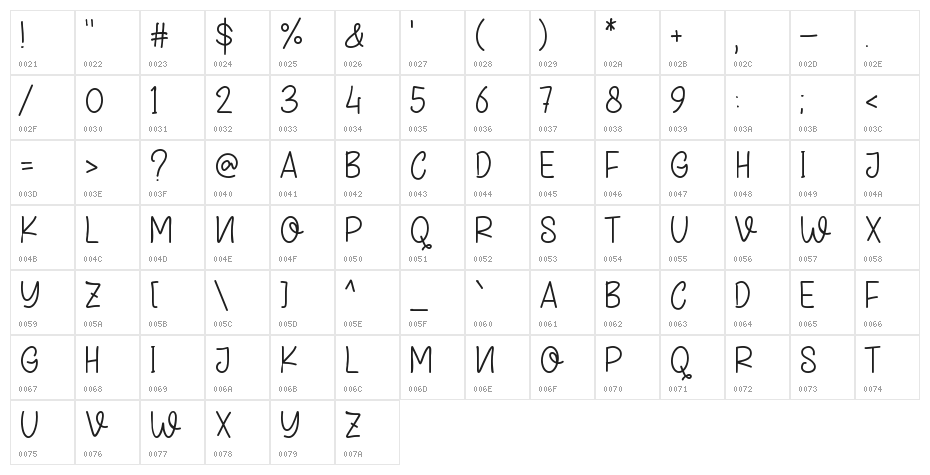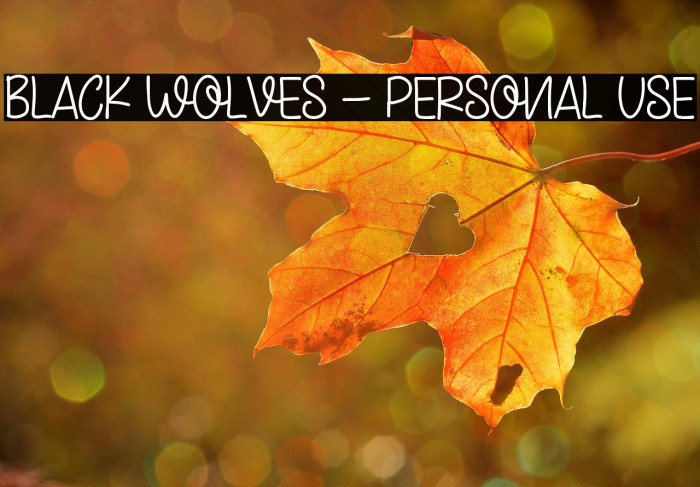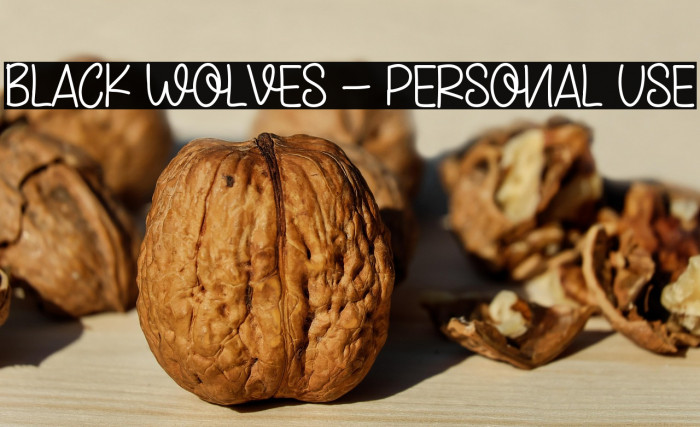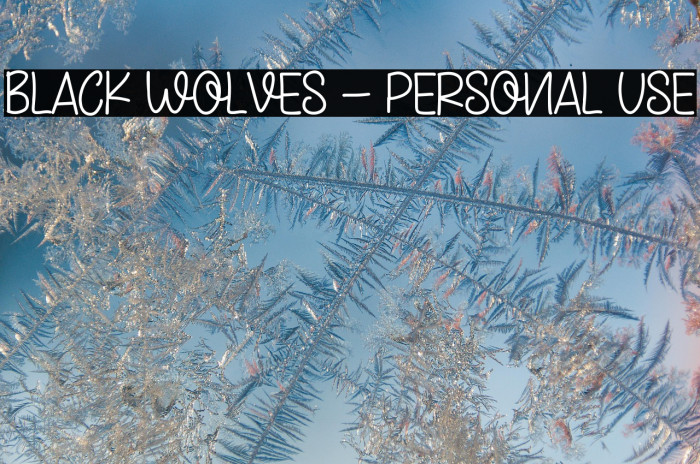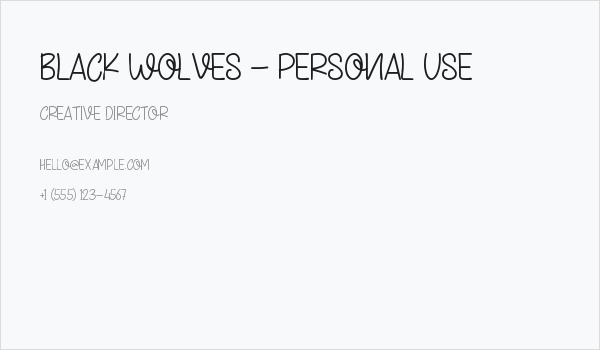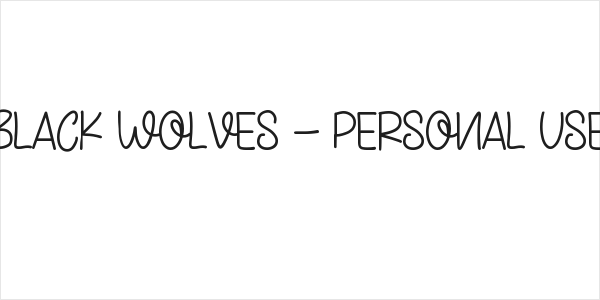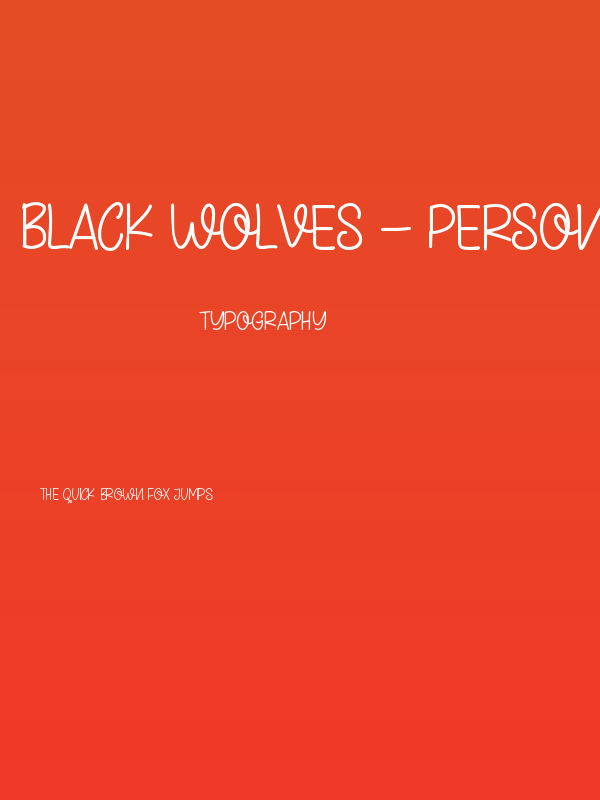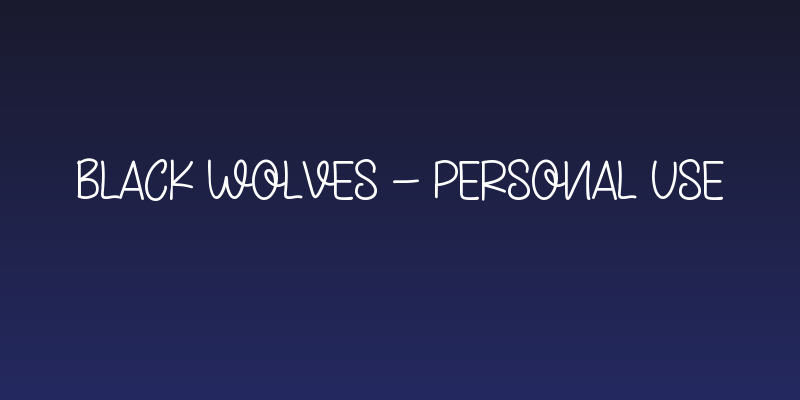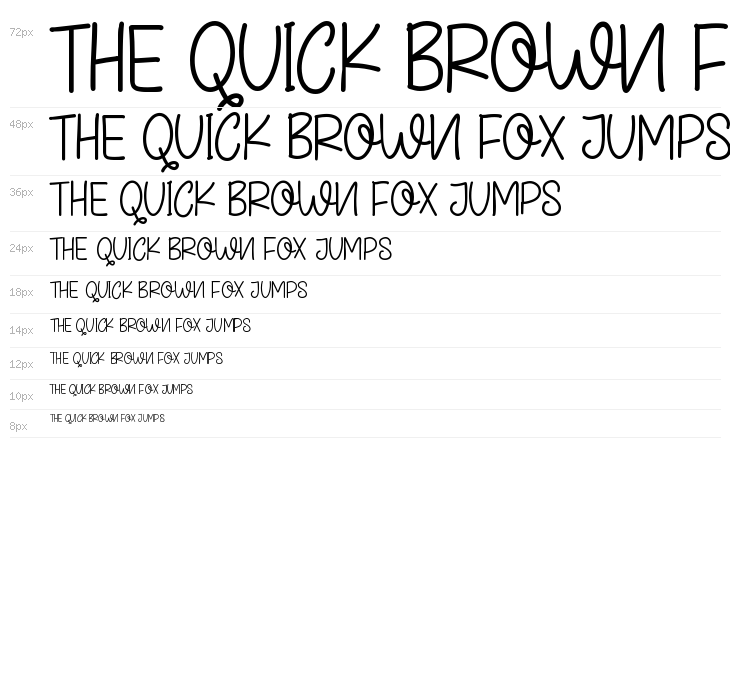
Black Wolves - Personal Use Font
Black Wolves - Personal Use Description
This font features a playful and casual handwritten style, characterized by smooth, flowing lines and a consistent stroke width. The letters are slightly rounded, giving them a friendly and approachable appearance. The uppercase and lowercase letters maintain a uniform height, contributing to a cohesive look. The numerals and special characters are designed to match the overall style, ensuring versatility across different uses. The font's informal nature makes it suitable for creative projects that require a personal touch.
| Overall Style | Casual |
| Use Case | Logos, Headlines, Informal Text |
| Proposed Projects | Ideal for greeting cards, children's books, casual branding, and social media graphics. |